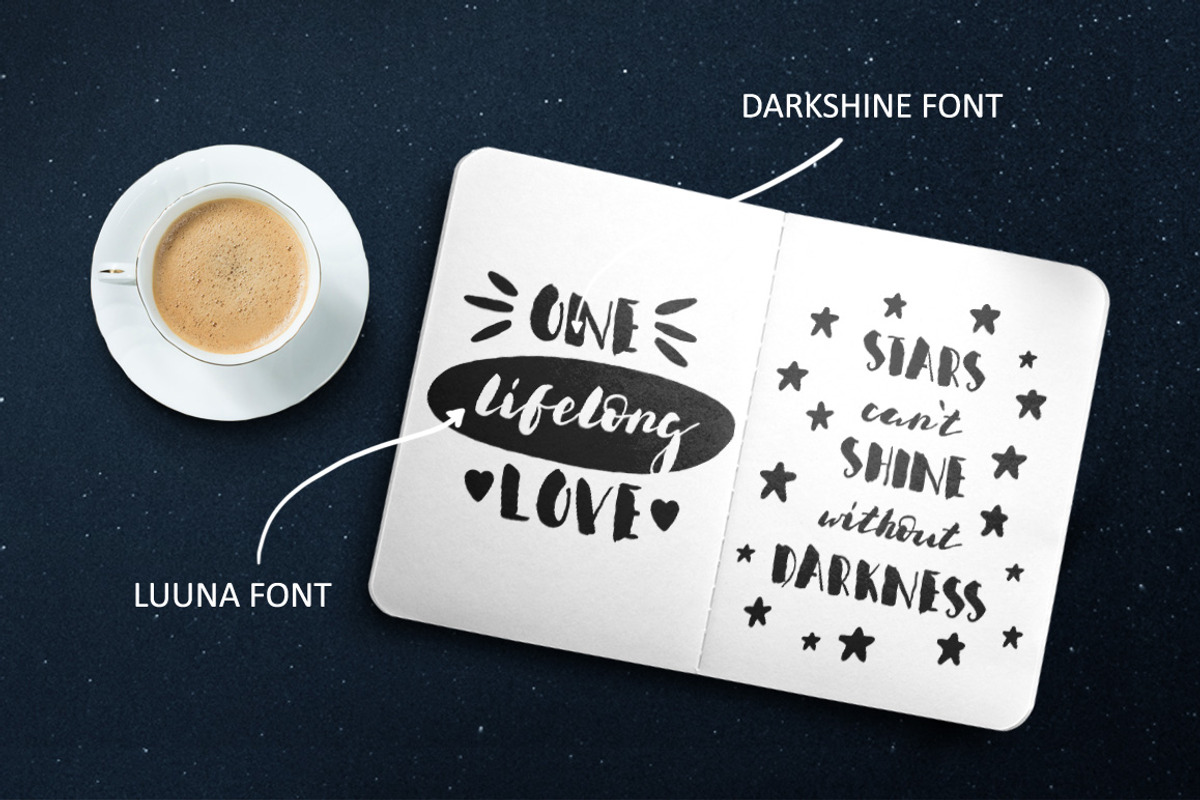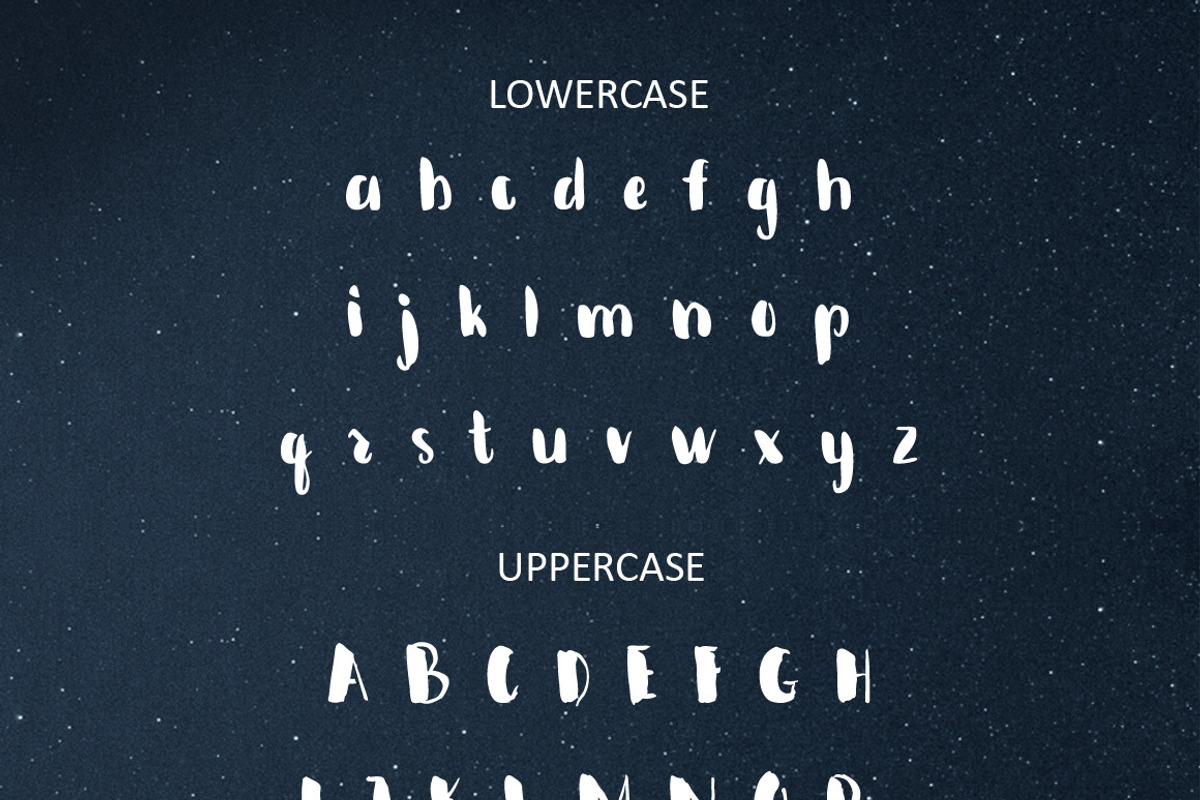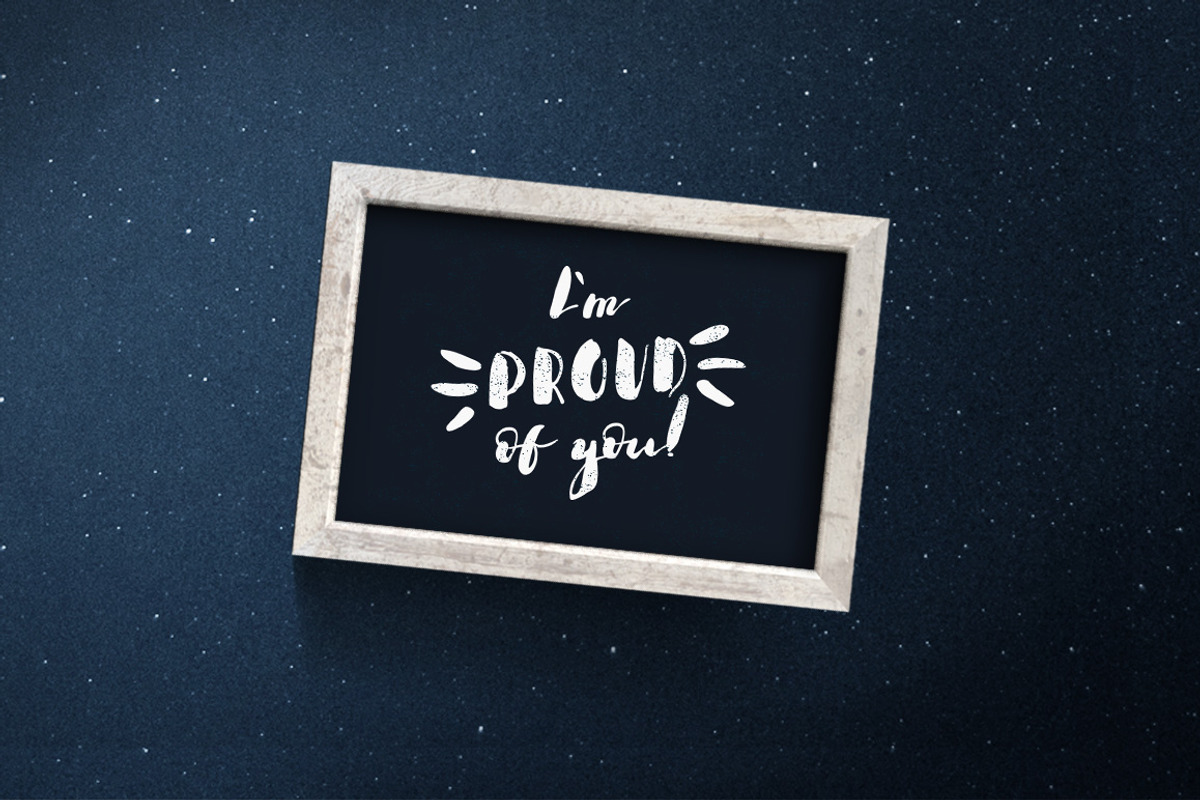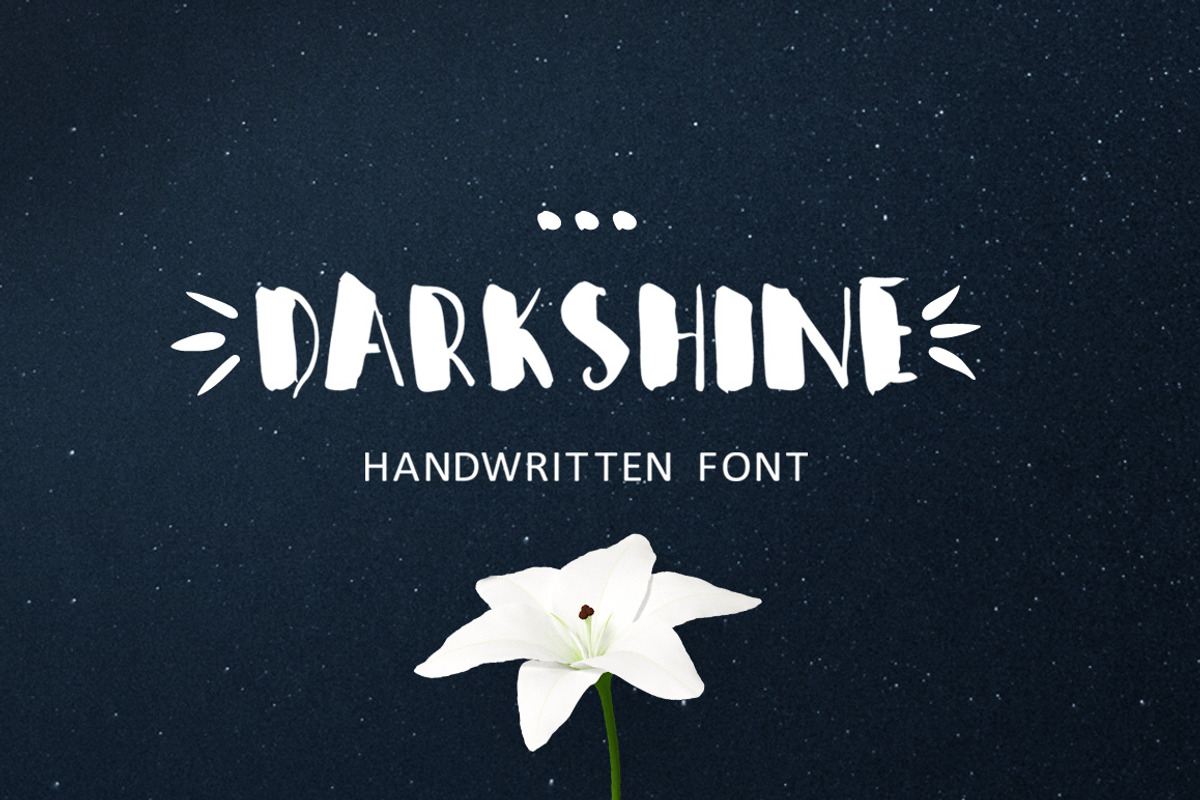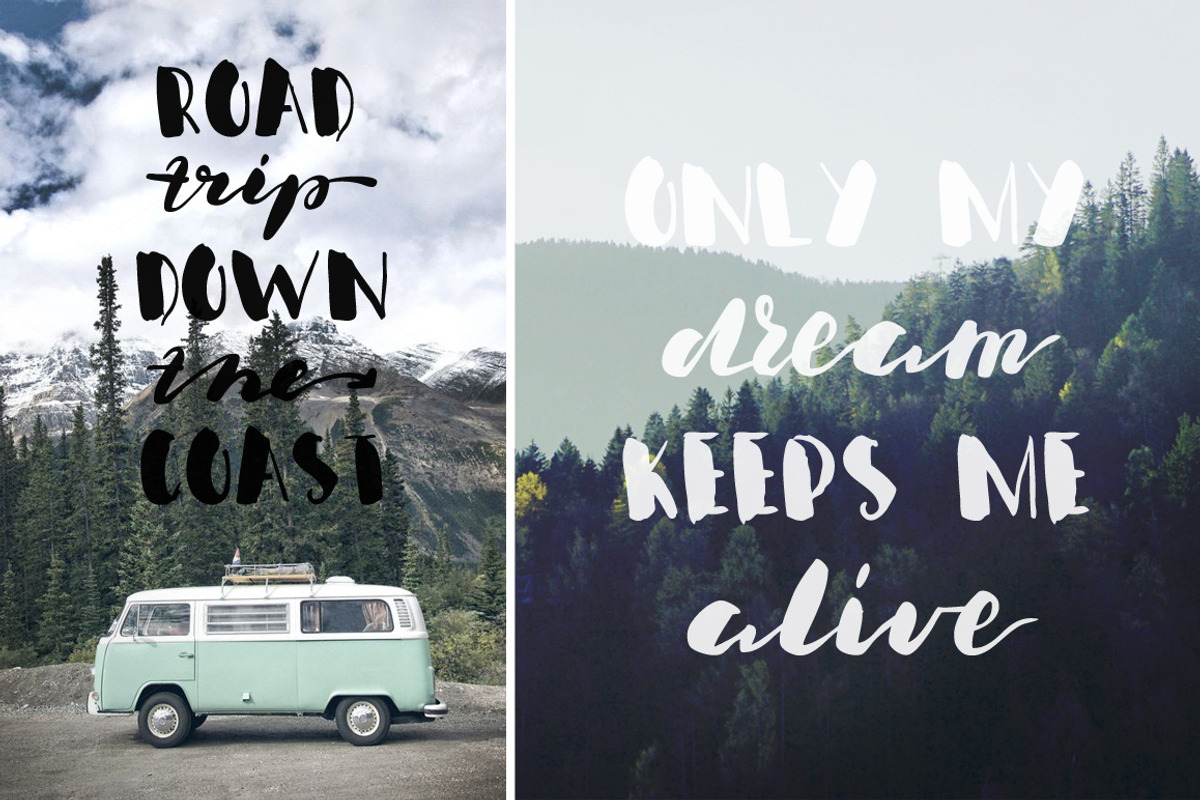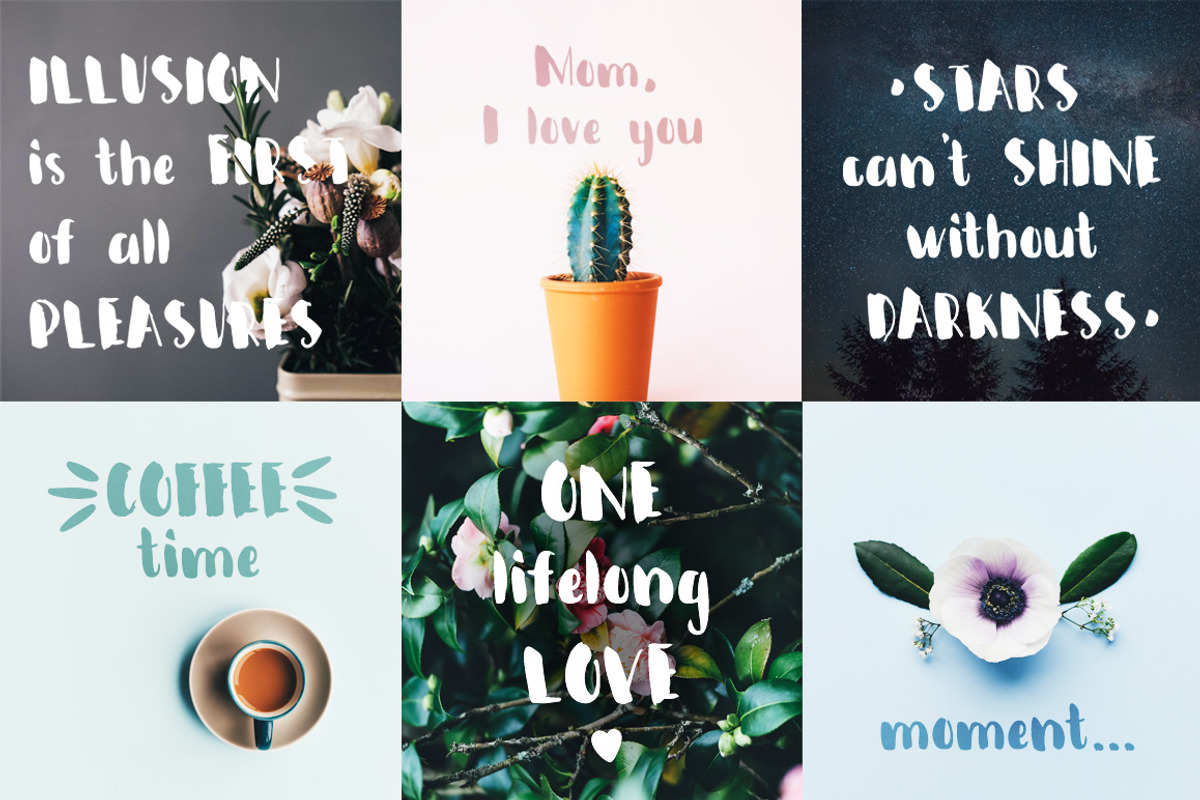
Darkshine Brush Font. Script.
Darkshine Brush Font. Script. by Wewhitelist is a font selected for branding, posters, packaging, typography.
Why Darkshine Brush Font. Script. is worth a look
Darkshine Brush Font. Script. by Wewhitelist fits naturally into Branding, posters, packaging, typography.